SAN JOSE, Calif. — Adobe has announced a significant expansion of its design ecosystem, bringing an impressive catalog of 665 new fonts spanning 41 distinct type families to Adobe Creative Cloud subscribers. The rollout, made possible through an expanded partnership with renowned type foundry Monotype, injects a rich lineage of historical and modern digital typography directly into the toolkits of millions of creative professionals worldwide.
This latest integration bridges the gap between early 20th-century typographic craftsmanship and contemporary digital design requirements. Subscribers can now immediately access, sync, and deploy these meticulously refined typefaces across Photoshop, Illustrator, InDesign, and other Creative Cloud applications without incurring additional licensing fees.
Main Facts: The Scope of the Monotype Integration
The infusion of 665 new typefaces represents one of the most substantial library updates for Adobe’s font-sourcing platform in recent years. Monotype, an industry titan with a history deeply intertwined with the evolution of written communication, has curated this collection specifically for the modern designer working within Adobe’s ecosystem.
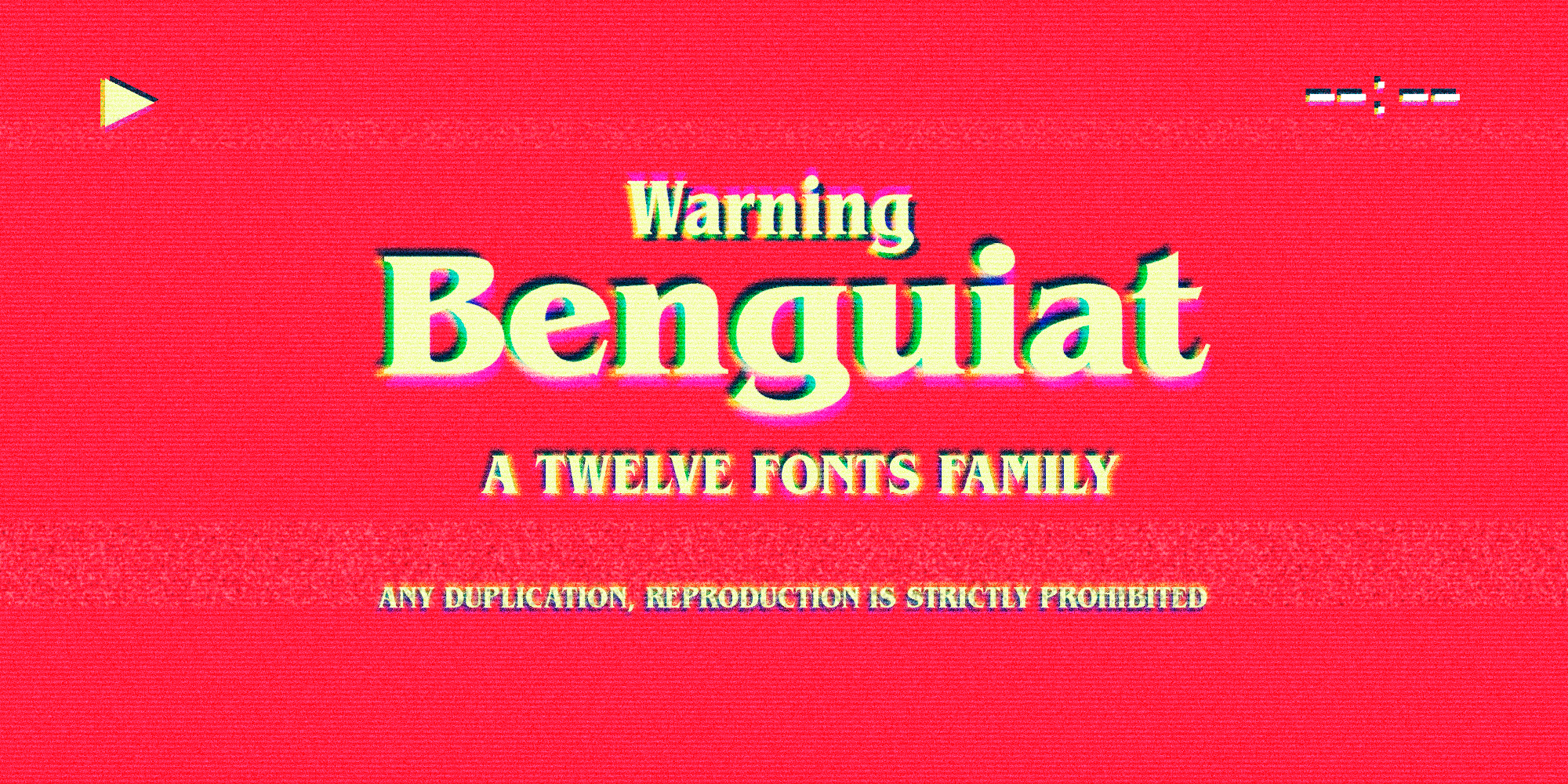
- Total Additions: 665 individual fonts.
- Family Diversity: 41 distinct type families.
- Historical Range: Encompasses designs originating from the early 1900s through the late 20th century, all modernized and digitized for contemporary workflows.
The update focuses heavily on versatile, battle-tested typefaces that have shaped visual culture for generations. Rather than leaning exclusively into experimental or fleeting micro-trends, Adobe and Monotype have prioritized foundational design assets—fonts that command authority in editorial layouts, branding, UI/UX design, and large-format advertising.
Chronology of Craft: From Hot-Metal to Cloud-Synced Vectors
To truly understand the value of this update, one must examine the historical trajectory of the typefaces now available to Creative Cloud users. These fonts are not merely digital assets; they are digital manifestations of decades—and in some cases, centuries—of typographic evolution.
The 16th to Early 20th Century: The Foundation
The historical roots of the collection extend as far back as the legacy of Christophe Plantin, the legendary 16th-century printer. The revival typeface Plantin, initially cast for hot-metal typesetting in 1913, celebrates over a century of utility. Its historical significance is further amplified by its role as the primary structural inspiration for Times New Roman, one of the most widely read typefaces in human history.
The Mid-20th Century Boom
As the industrial world modernized, public transit and corporate branding demanded unprecedented legibility. In 1916, the London Underground introduced the lettering that would inspire Gill Sans, laying the groundwork for what designers now revere as the pinnacle of mid-century British modernism.
By 1934, Monotype designers posed a radical typographic question: What happens when you apply structural serifs to a geometric sans-serif framework like Futura? The answer was Rockwell, a slab-serif powerhouse that would go on to define decades of editorial headlines and corporate identity systems.
The Post-War and 1960s Constraints
Typography in the mid-to-late 20th century was frequently driven by strict functional constraints. In 1967, master typographer Jan Tschichold was tasked with designing Sabon under a remarkably rigid set of production limitations—demands that would confound many modern digital designers. Yet, these strict constraints birthed a harmonious, highly readable book face that remains a gold standard for long-form publishing.
The Pop-Culture and Avant-Garde Era of the 1970s and 1980s
As graphic design shifted toward bold expressionism, typefaces like ITC Avant Garde Gothic—born from Herb Lubalin and Tom Carnase’s visionary magazine covers and expanded by Ed Benguiat—introduced striking geometric geometry and flexible alternate glyphs. Simultaneously, Ed Benguiat’s eponymous serif creation, ITC Benguiat, captured the zeitgeist of 1980s literature and design, later finding a modern renaissance as the visual signature of global pop-culture phenomena like Netflix’s Stranger Things.
Spotlight on Selected Highlights
While browsing through 665 new fonts can initially feel overwhelming for time-pressed creatives, industry experts recommend beginning with several standout families included in the Monotype drop:
1. ITC Benguiat
- The Vibe: Nostalgic, literary, and unmistakably cinematic.
- Use Cases: Book covers, retro-themed branding, and prominent display headers.
- Details: Designed by Ed Benguiat, this expressive serif typeface carries an intrinsic personality. Even when unstyled and set at standard tracking, it commands visual attention, evoking the aesthetic spirit of the 1970s and 80s print media.
2. ITC Avant Garde Gothic
- The Vibe: Sleek, geometric, and endlessly customizable.
- Use Cases: Modern logos, high-fashion editorials, and striking poster design.
- Details: Originally conceived for Avant Garde Magazine by Herb Lubalin and Tom Carnase, Ed Benguiat later expanded the character set. Its true power is unlocked through the thoughtful deployment of its iconic alternate glyphs, allowing designers to create bespoke typographic lockups.
3. Gill Sans Nova
- The Vibe: Midcentury transit glam meets architectural clarity.
- Use Cases: Corporate identity, wayfinding systems, and clean editorial layouts.
- Details: Expanding far beyond Eric Gill’s original transit lettering, successive generations of designers have built out a comprehensive typographical system. The Nova release includes extended alphabets, a highly functional Condensed width, and playful shading and outline variants.
4. Plantin
- The Vibe: Scholarly, timeless, and impeccably balanced.
- Use Cases: Long-form book publishing, academic journals, and sophisticated editorial spreads.
- Details: Transitioned smoothly from early 20th-century hot-metal plates to crisp digital vectors, Plantin offers a softer, more traditional alternative to its descendant, Times New Roman, without sacrificing legibility at smaller point sizes.
5. Rockwell Nova
- The Vibe: Industrial, robust, and commanding.
- Use Cases: Heavy-hitting headlines, packaging design, and structured corporate branding.
- Details: A masterclass in slab-serif design. Rockwell Nova bridges the gap between the clean lines of geometric sans-serifs and the authoritative weight of serifs. The inclusion of the Condensed width makes it exceptionally adaptable for tight layout constraints.
6. Sabon
- The Vibe: Classical elegance engineered for maximum readability.
- Use Cases: Literary novels, high-end magazines, and elegant corporate reports.
- Details: Jan Tschichold’s meticulous adherence to historical specifications ensures that Sabon maintains an organic, hand-crafted aesthetic while performing flawlessly on modern high-resolution screens and traditional printing presses alike.
7. Trade Gothic Next (Including Soft Rounded)
- The Vibe: Utilitarian, direct, and exceptionally versatile.
- Use Cases: Data visualization, complex infographics, and clean user interface design.
- Details: Trade Gothic has long been a staple in the working designer’s arsenal for clear, unambiguous headlines. The addition of the "Soft Rounded" variant introduces a friendlier, more approachable aesthetic, softening the otherwise stark industrial nature of the standard cuts.
Official Responses and Industry Context
Adobe’s ongoing enhancement of its font library reflects a broader industry shift toward integrated, cloud-native creative workflows. By partnering with historic foundries like Monotype, Adobe aims to position its platform not merely as a suite of production tools, but as a comprehensive, end-to-end creative ecosystem.
"Typography is the voice of visual design," noted a representative close to the platform’s asset curation team. "By continuously injecting historically rich, expertly crafted type families like these into Creative Cloud, we are giving our subscribers the foundational vocabulary they need to tell compelling stories, whether they are building a modern digital brand or crafting a retro-inspired editorial layout."
Design industry analysts have praised the update for bridging the digital divide. Historically, licensing extensive type families from heritage foundries involved navigating complex, fragmented, and often expensive licensing agreements. Integrating these libraries directly into Creative Cloud subscriptions removes financial and administrative friction for design agencies, independent freelancers, and enterprise teams alike.
Implications for Creative Professionals
The arrival of these 665 new fonts carries several direct implications for the day-to-day operations of designers, typographers, and brand strategists:
- Streamlined Workflows: Creators no longer need to rely on third-party font management utilities or worry about missing licensing rights when collaborating across distributed teams. Cloud synchronization ensures that files open seamlessly across different workstations.
- Elevated Design Standards: Access to masterworks like Sabon, Plantin, and Gill Sans Nova encourages higher standards of typographic hierarchy and historical awareness in modern digital layouts.
- Future-Proofing: Adobe has hinted that some of these newly integrated fonts may soon be packaged into specialized curated font packs, allowing teams to deploy thematic collections tailored to specific industries, such as publishing, packaging, or digital marketing.
- Aesthetic Versatility: With options ranging from the sharp, utilitarian geometry of Trade Gothic Next Soft Rounded to the literary elegance of ITC Benguiat, creative professionals possess an expanded emotional palette to match any project brief.
As these fonts roll out globally to all active Creative Cloud subscriptions, designers are encouraged to explore the expanded Typekit catalog, sync their preferred families, and begin integrating a century of typographic mastery into their next generation of visual projects.